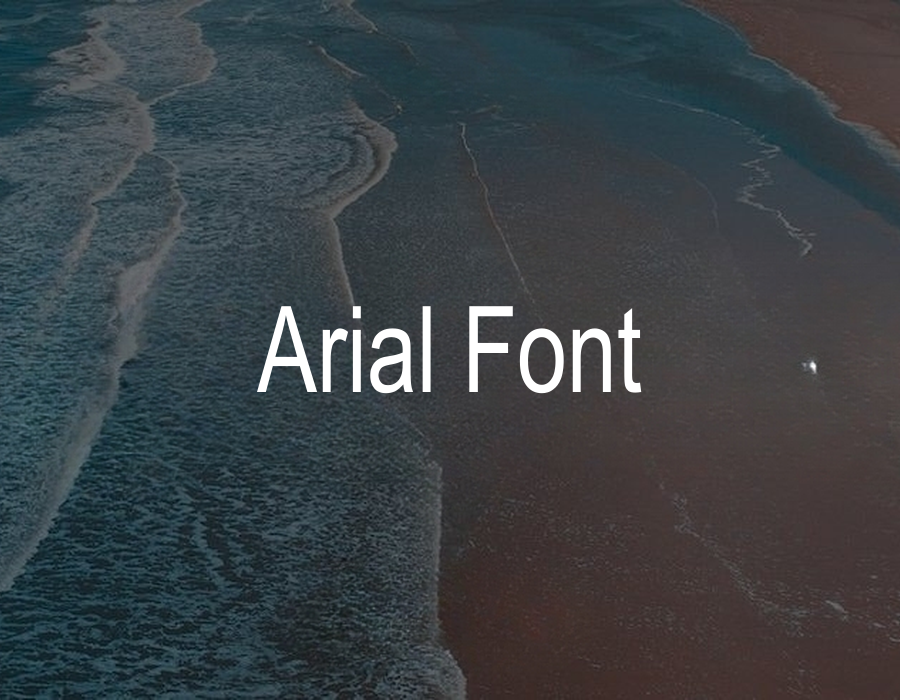
About Arial Font
Arial is arguably the world's most ubiquitous sans-serif typeface. Designed as a metrically compatible alternative to Helvetica, it features clean, neutral letterforms with a slightly softer, more organic feel than its inspiration. Its high legibility, wide availability, and lack of strong personality have made it a default choice for business documents, web text, user interfaces, and presentations for decades. While often criticized by designers for its ubiquity and functional origins, its very neutrality and clarity ensure it remains a practical, go-to workhorse font for countless applications where readability and universality are paramount.